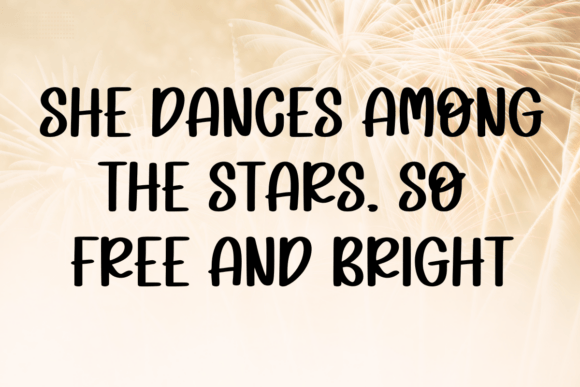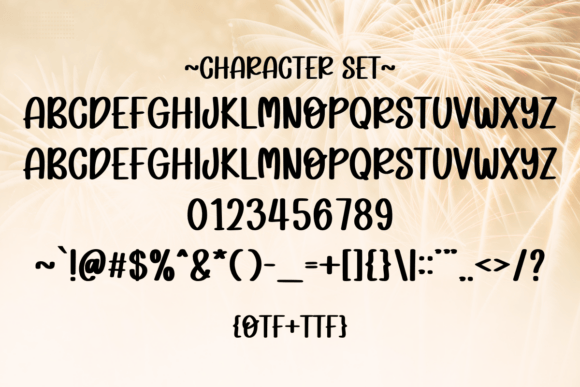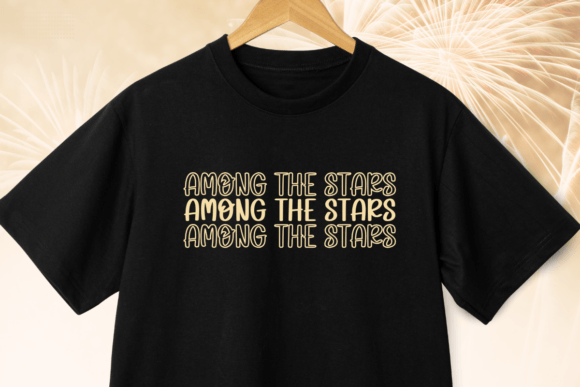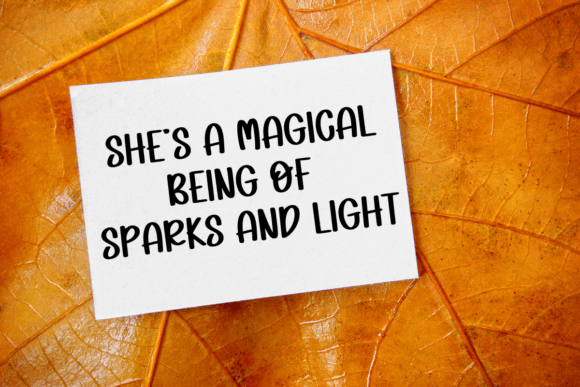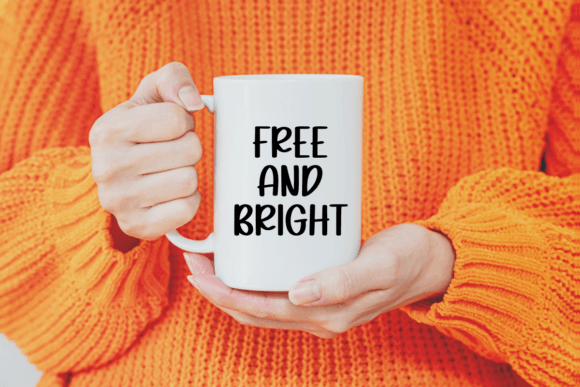
Introducing Firework Fairy Font: The Ultimate Retro Addition to Your Designs
Are you tired of using the same old fonts in your designs? Look no further! Firework Fairy Font is here to add a touch of fun, playfulness, and retro charm to your creations. This bold sans serif font is perfect for designers and crafters who want to make their work stand out from the crowd.
What Makes Firework Fairy Font So Special?
Firework Fairy Font is a unique and eye-catching font that is sure to grab attention. Its bold and sans serif design makes it perfect for a wide range of projects, from party invitations and children’s book titles to social media graphics and branding materials. The font’s fun and bubbly personality is guaranteed to bring a smile to your audience’s faces.
Perfect for Retro, Fun, Cute, and Bubbly Designs
Firework Fairy Font is specifically designed for designs that are retro, fun, cute, and bubbly. Whether you’re creating a vintage-inspired poster, a playful birthday card, or a colorful social media graphic, this font is the perfect choice. Its bold and cheerful design will add a touch of whimsy and personality to your work, making it perfect for:
- Party invitations and decorations
- Children’s book titles and illustrations
- Crafting projects, such as scrapbooking and DIY tutorials
Why Designers and Crafters Love Firework Fairy Font
Designers and crafters love Firework Fairy Font for its versatility and ease of use. The font is:
- Easy to read and understand, even at small sizes
- Perfect for both digital and print projects
Tips for Using Firework Fairy Font in Your Designs
Here are some tips for getting the most out of Firework Fairy Font in your designs:
- Use it as a headline font to grab attention and add visual interest
- Pair it with other fonts to create a unique and eye-catching combination
- Experiment with different colors and textures to add depth and personality to your design
- Don’t be afraid to get creative and try new things – Firework Fairy Font is all about having fun and being playful!
Firework Fairy Font is a fun and bold sans serif font that is perfect for designers and crafters who want to add a touch of retro charm to their work. With its easy-to-read design, versatility, and range of formats, this font is sure to become a favorite in your design arsenal. So why wait? Download Firework Fairy Font today and start creating fun, cute, and bubbly designs that will delight your audience!